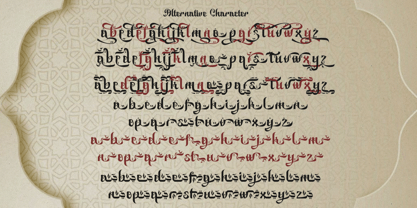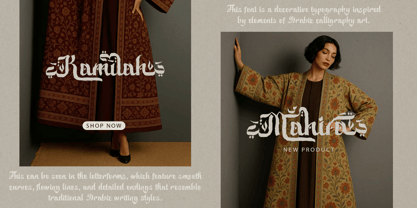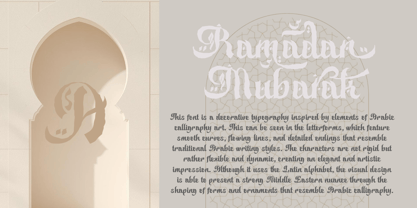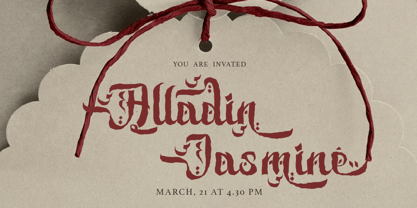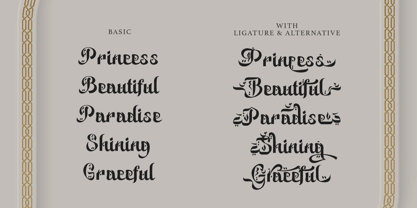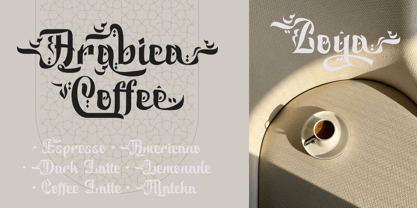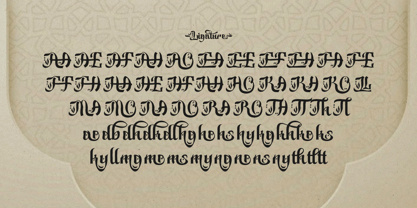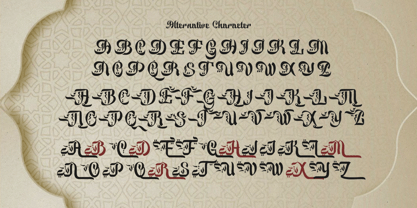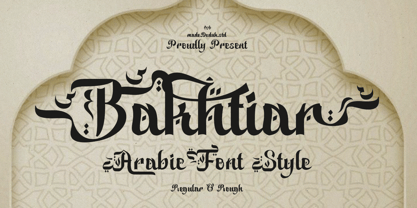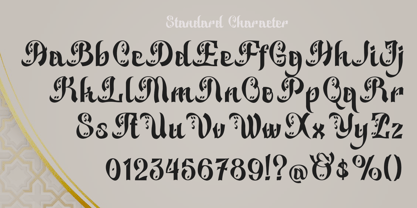
Bakhtiar
by madeDeduk
The Bakhtiar Font Family was designed by madededuk and published by madeDeduk. Bakhtiar contains 2 styles and family package options. More about this family
Introducing, Backhtiar is font is a decorative typography inspired by elements of Arabic calligraphy art. This can be seen in the letterforms, which feature smooth curves, flowing lines, and detailed endings that resemble traditional Arabic writing styles. The characters are not rigid but rather flexible and dynamic, creating an elegant and artistic impression. Although it uses the Latin alphabet, the visual design is able to present a strong Middle Eastern nuance through the shaping of forms and ornaments that resemble Arabic calligraphy. In the context of design, this font demonstrates a fusion of modern letter structures with the aesthetic touch of Arabic calligraphy, which is rich in artistic value. Decorative elements such as curves, dots, and additional accents create a unique visual identity and enhance its exotic and luxurious impression. Fonts like this are highly suitable for designs that carry Islamic themes or creative works that require an elegant and distinctive atmosphere. With this combination, the font not only functions as a medium of communication but also serves as a visual element with high artistic value.